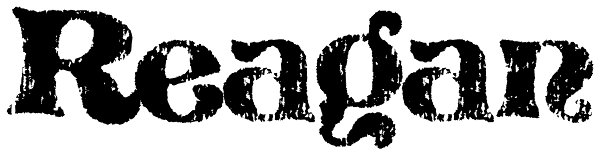
Reagan
It’s hard to nail down a single font as the t-shirt font of the 1980s. T-shirt wearers of the opulent eighties were hungry; hungry for a fanciness only a font called Pretorian could provide. Pretorian: a late seventies Victorian revival which spread...